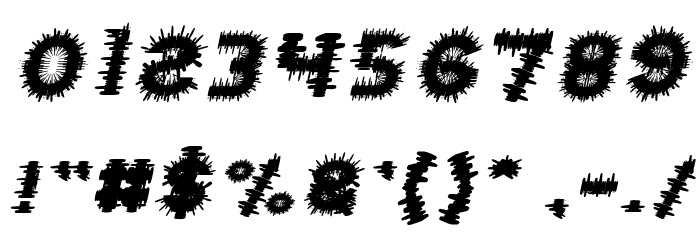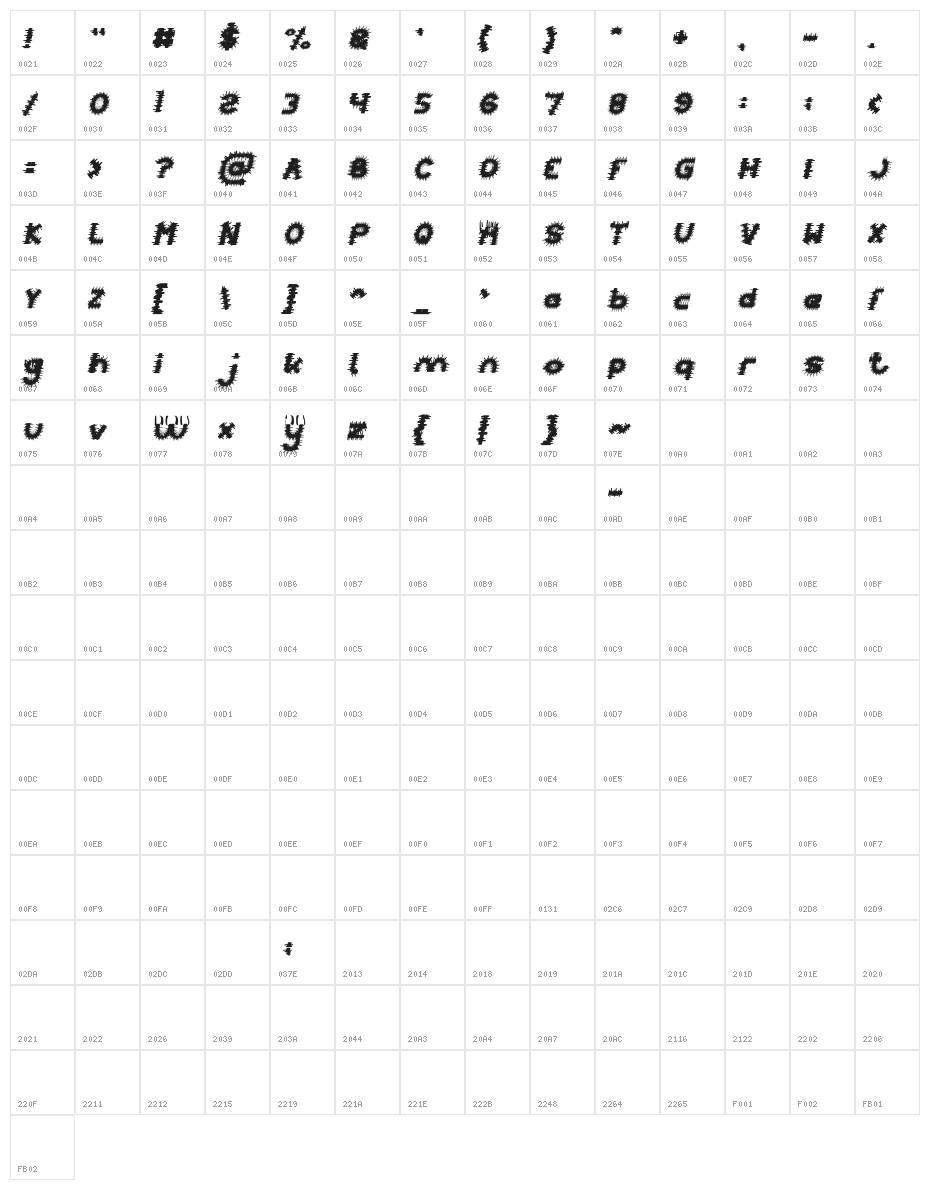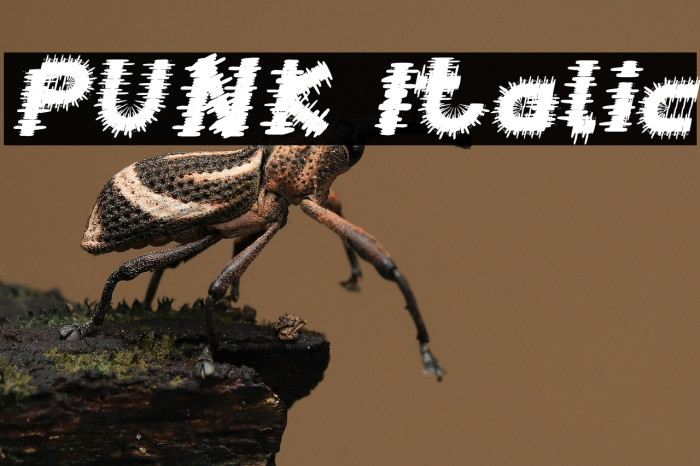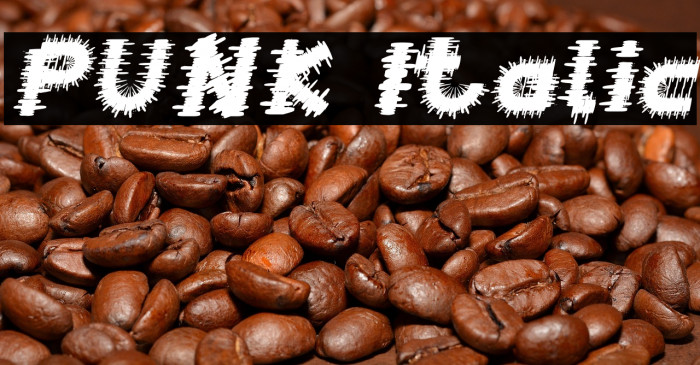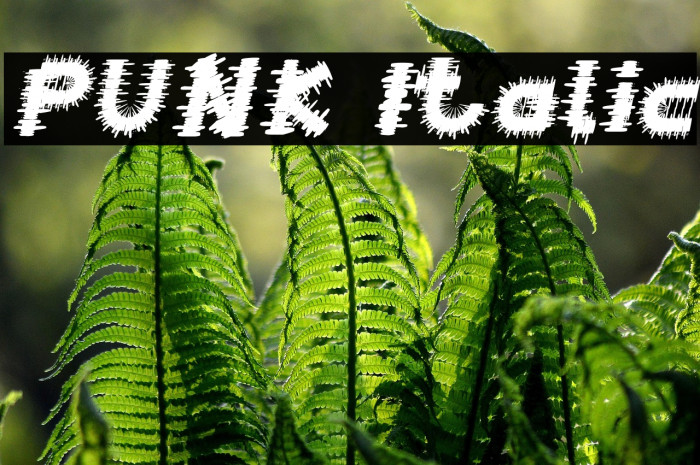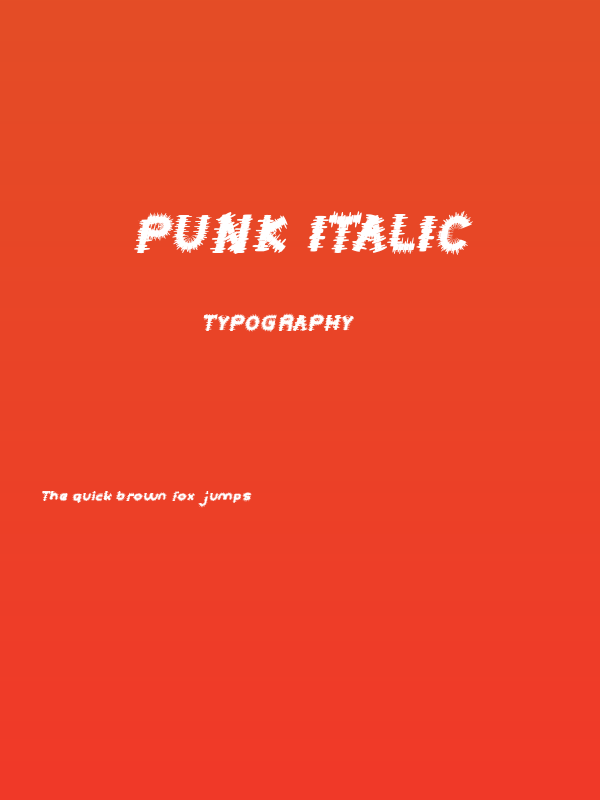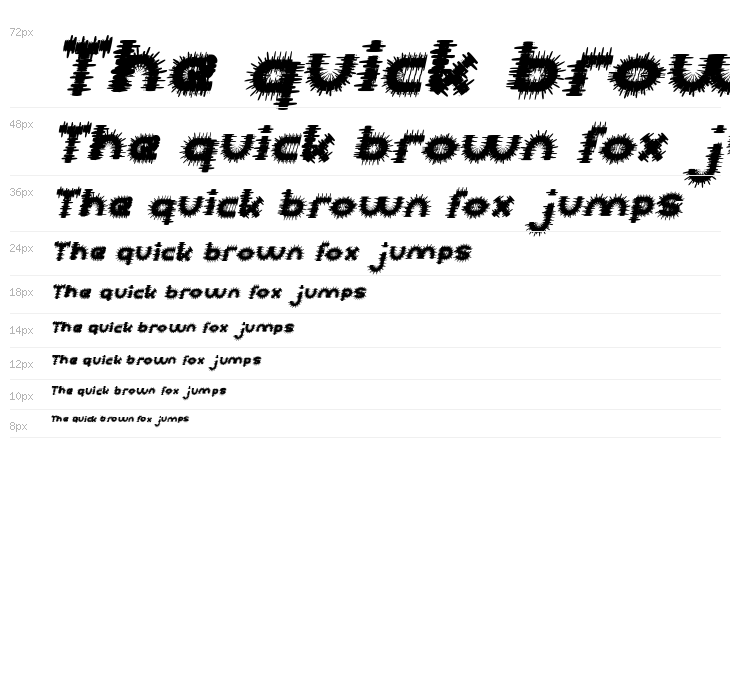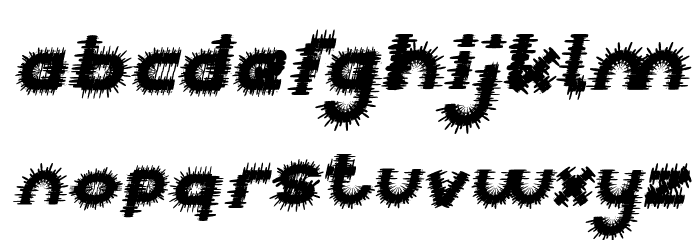
PUNK Italic Font
PUNK Italic Description
This font features a bold and edgy design with a distinct punk aesthetic. Each character is surrounded by sharp, jagged edges that give it a rebellious and energetic feel. The letters are italicized, adding a sense of motion and urgency. The uppercase and lowercase letters maintain a consistent style, while the numbers and special characters are equally dynamic and visually striking. This font is perfect for projects that require a bold statement or a touch of unconventional flair.
| Overall Style | Punk, Edgy, Energetic |
| Proposed Projects | Ideal for music album covers, posters, event flyers, and any design needing a rebellious or edgy vibe. |